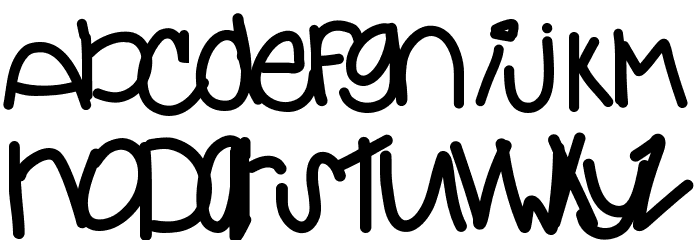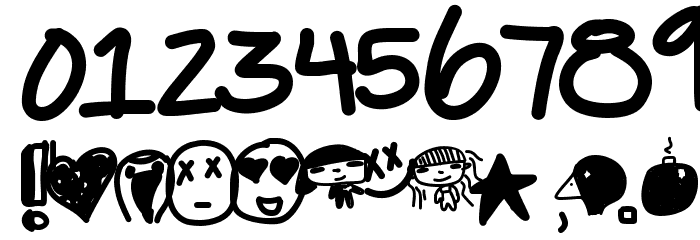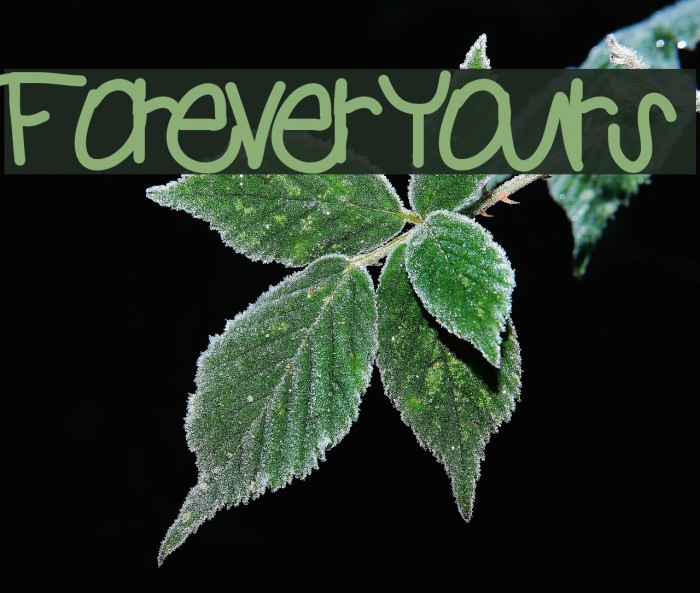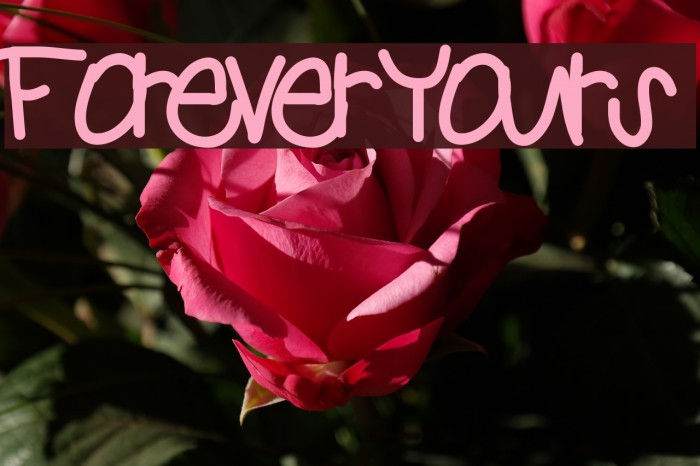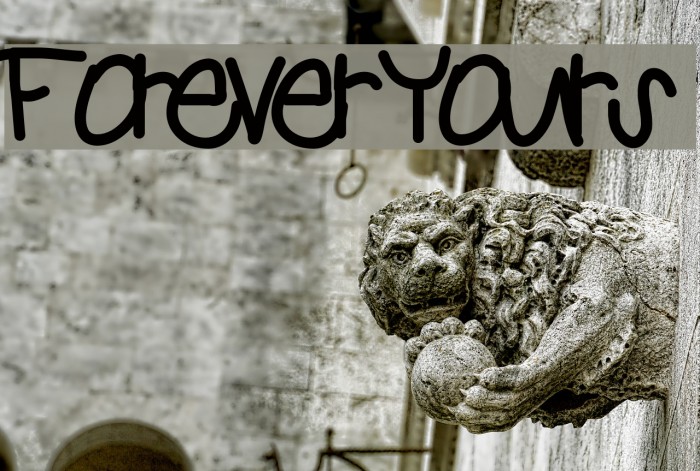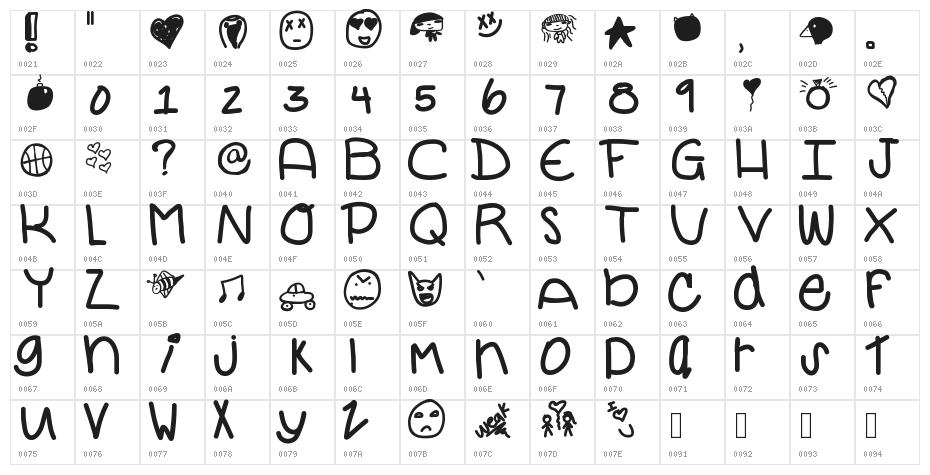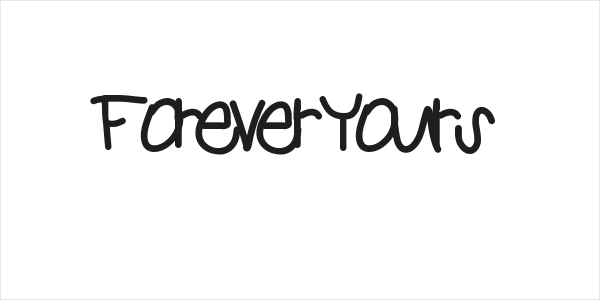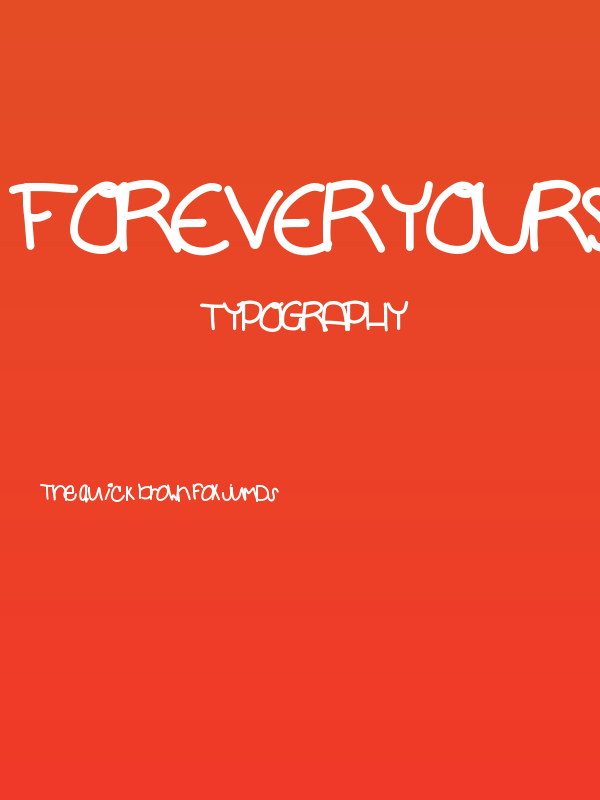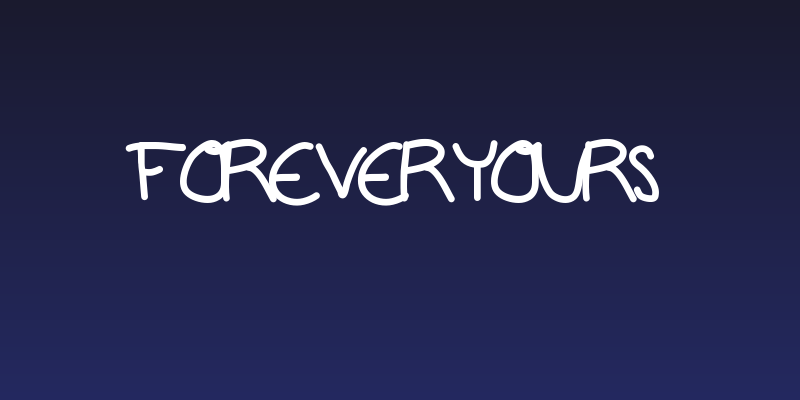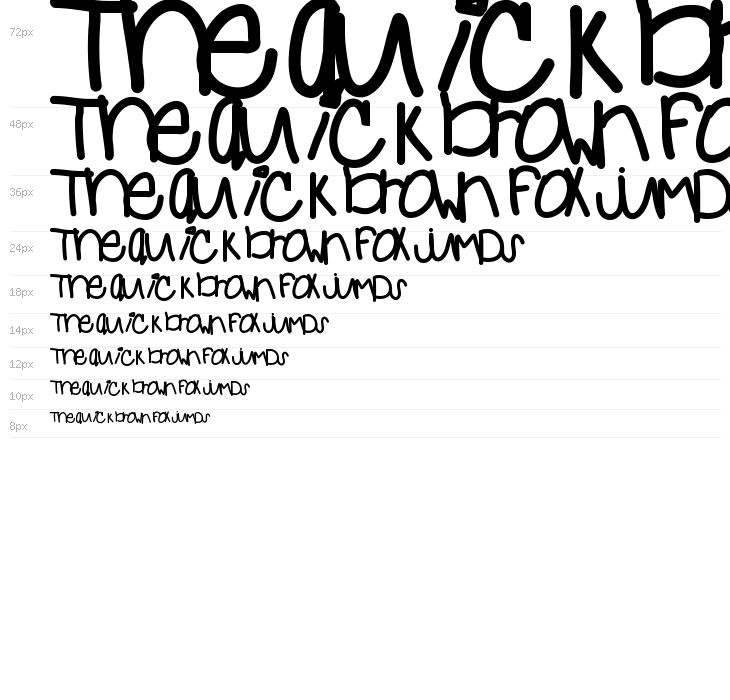
ForeverYours Font
This playful and whimsical font features a handwritten style with a casual and informal appearance. The letters are bold and rounded, with a slightly uneven baseline that adds to its charm. The uppercase and lowercase characters maintain a consistent style, while the numbers are clear and easy to read. Special characters are creatively designed, incorporating playful elements that enhance the font's unique personality. This font exudes a sense of fun and creativity, making it ideal for projects that require a lighthearted and engaging touch.
A playful, handwritten font with bold, rounded characters and whimsical special symbols.
- Proposed Projects: Ideal for children's books, greeting cards, playful branding, and creative social media graphics.